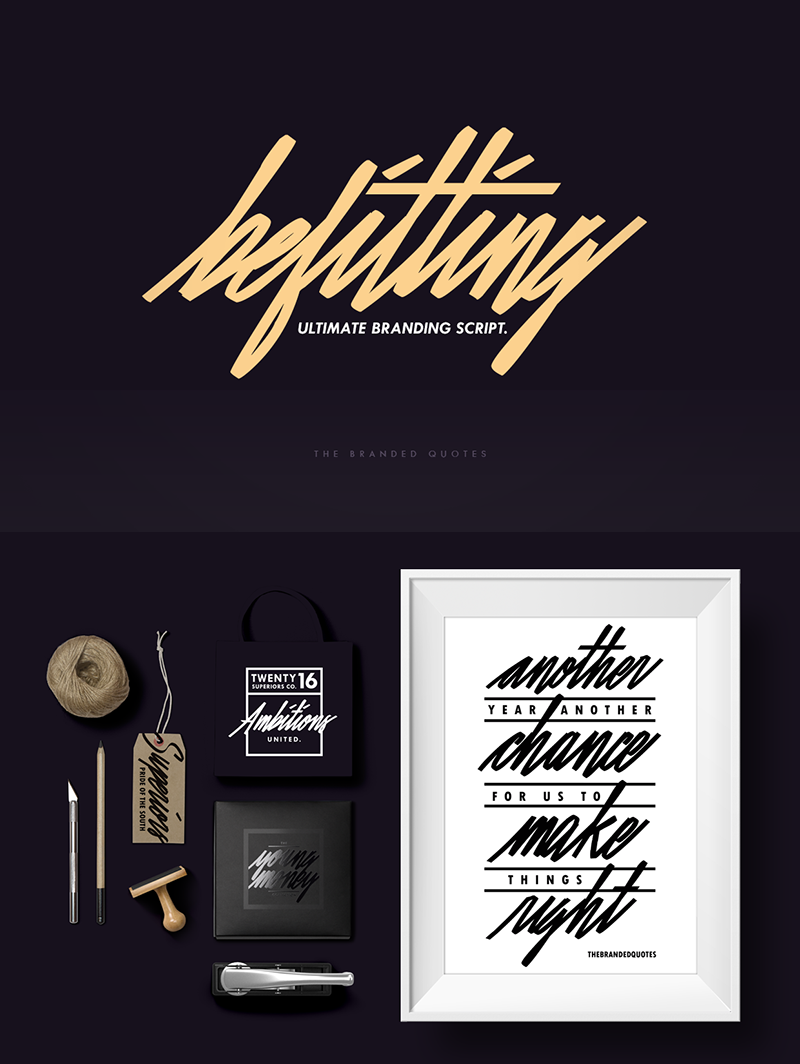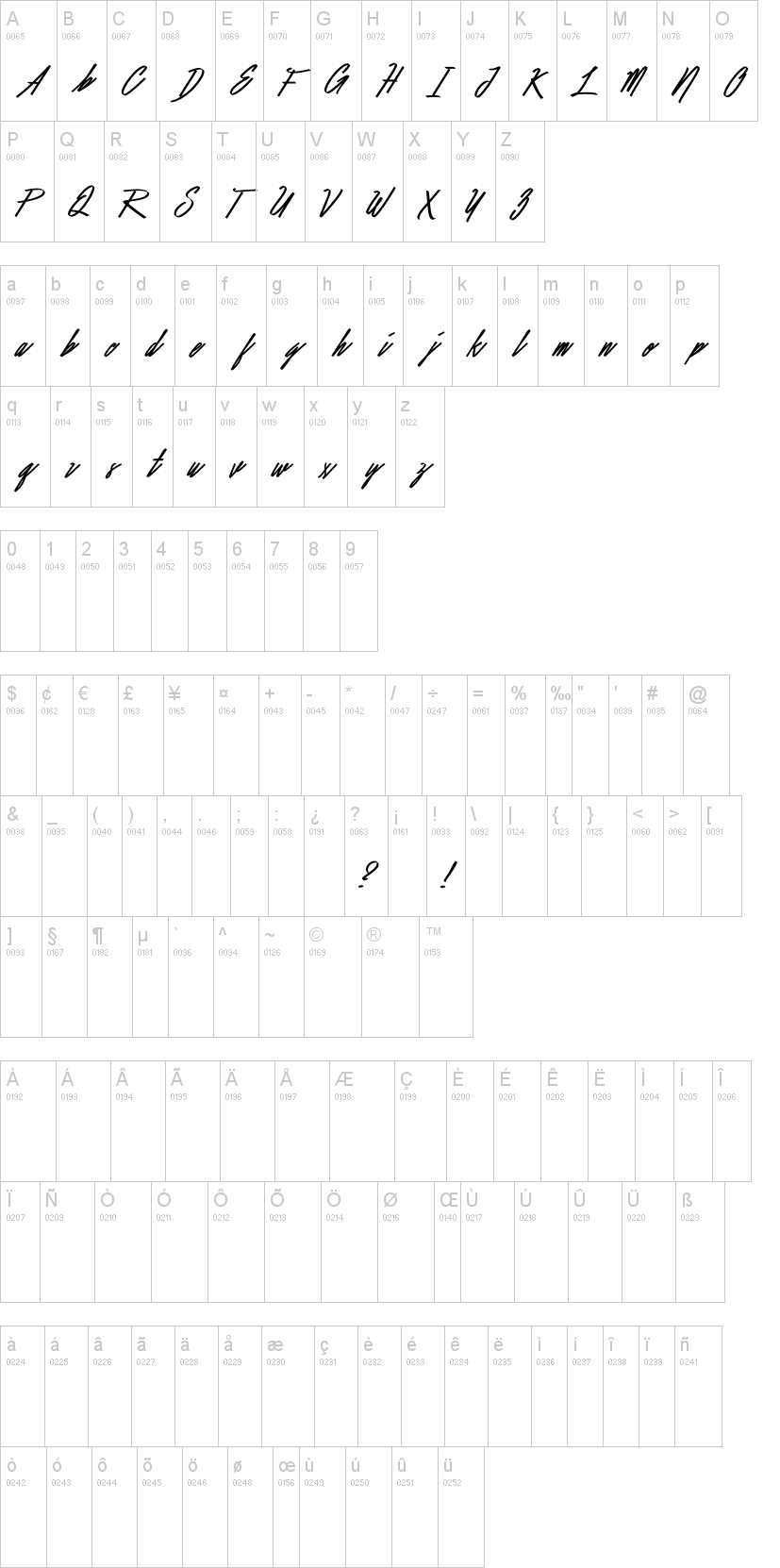
with complete Uppercase,Numerals, Alternates and Ligatures.
Befitting Script gives you the blueprint of future possibilities. A Cursive programmed with smart alternates that flows smoothly as you assemble the words from your mind. Very versatile and will absolutely fit to most branding concepts from your hang tags to the typographic design of your apparel brand. The urban style brush strokes gave the font a more flexible look but striking appearance!
Befitting Regular - the regular look of Befitting Script which includes the standard characters, ligatures, contextual alternates and alternate characters.
Befitting Slant - a more slanted and cursive look with a "quickly written" feel.
Befitting Alternates - the alternate characters were manually picked to form a new font for you to easily access the bonus glyph.